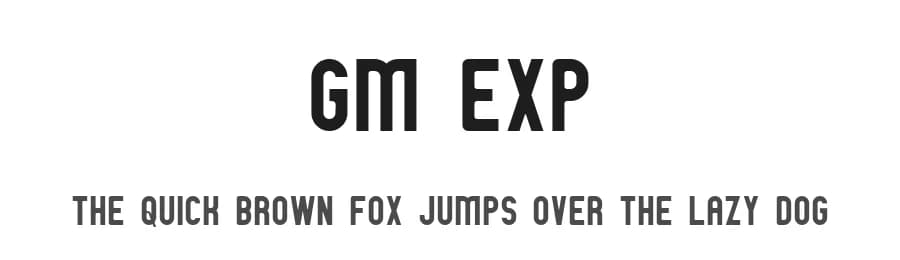
About GM Exp Font
GM Exp is a sans-serif font designed by GemFonts / Typotheticals. It includes 85 glyphs, a regular weight, TTF (TrueType) format, and 105 languages. GM Exp is free to download; check the license details on this page before commercial use. Sans-serif fonts like GM Exp work best for clean body text, user interfaces, branding, and modern layouts.
GM Exp Font is a versatile sans-serif font that works for both headings and body text. Pair it with a contrasting serif or slab serif font to add visual interest and a clear distinction between titles and body copy.
GM Exp Font
GM Exp Font is a sans serif typeface by GemFonts / Typotheticals, ideal for logos, invitations, branding, and creative projects.